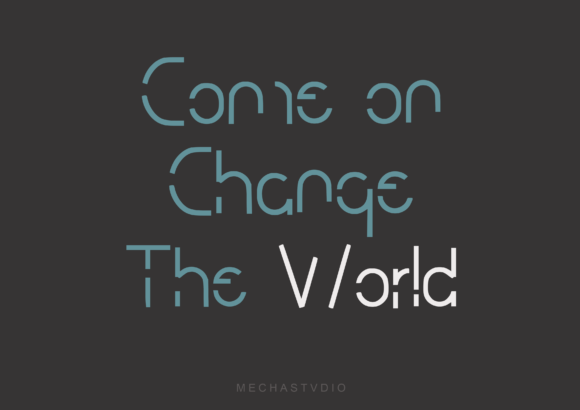
Introducing Disconnect Font: Elevate Your Designs with a Unique Touch
In the realm of typography, finding the perfect font that sets your project apart from the rest can be a daunting task. However, your search ends with the Disconnect Font, a simple, modern, and uniquely crafted custom display font. Designed to transform your projects into true standouts, Disconnect Font brings a fresh and distinctive style that is sure to capture attention and leave a lasting impression.
What Makes Disconnect Font Stand Out?
Disconnect Font boasts a range of characteristics that make it an exceptional choice for designers and crafters looking for that special typographic element. Here are a few key features:
- Simplicity and Modernity: At its core, Disconnect Font embodies simplicity and modernity. Its clean lines and uncomplicated structure make it versatile and easy to integrate into various design projects, from digital interfaces to print materials.
- Unique Style: The uniqueness of Disconnect Font lies in its subtle irregularities and distinctive character shapes. This uniqueness adds a human touch to your designs, setting them apart from projects using more conventional fonts.
- Versatility: Whether you’re working on a website, a mobile app, a branding project, or any other creative endeavor, Disconnect Font adapts seamlessly. Its modern aesthetic ensures that it complements a wide range of design themes and styles.
The adaptability and distinctive charm of Disconnect Font make it suitable for numerous applications. Here are some ideal projects where this font truly shines:
- Branding and Logos: Create a memorable brand identity with Disconnect Font. Its unique style can help your logo stand out and make your brand instantly recognizable.
- Web Design: Enhance your website’s typography with a modern font that catches the eye. Disconnect Font’s readability and style make it perfect for headings, titles, and even body text in some contexts.
- Mobile Apps: For app designers, Disconnect Font offers a contemporary look that can elevate the user interface and overall user experience.
- Marketing and Advertising: Use Disconnect Font in your marketing materials to add a touch of modern elegance and sophistication. It’s sure to make your advertisements stand out.
- Packaging: For crafters and product designers, this font can add a unique flair to packaging designs, making products more appealing to potential customers.
How to Use Disconnect Font Effectively
To maximize the impact of Disconnect Font, consider the following tips:
- Pair it Wisely: Combine Disconnect Font with complementary fonts to create visual interest. A contrasting font for body text can make your headings pop.
- Experiment with Sizes: Play with different font sizes to utilize Disconnect Font’s versatility fully. Large headings can be dramatic, while smaller sizes can add a subtle touch of personality.
- Color Matters: Choose colors that resonate with your brand or project’s theme. Disconnect Font’s simplicity makes it a great canvas for bold and vibrant colors.
Disconnect Font is more than just a typeface; it’s a design statement. Its blend of simplicity, modernity, and uniqueness makes it an invaluable asset for designers and crafters aiming to create standout projects. Whether you’re developing a brand identity, designing a website, or crafting a marketing campaign, Disconnect Font offers the perfect combination of style and versatility. Embrace the power of typography with Disconnect Font and watch your designs transform into captivating visual experiences.